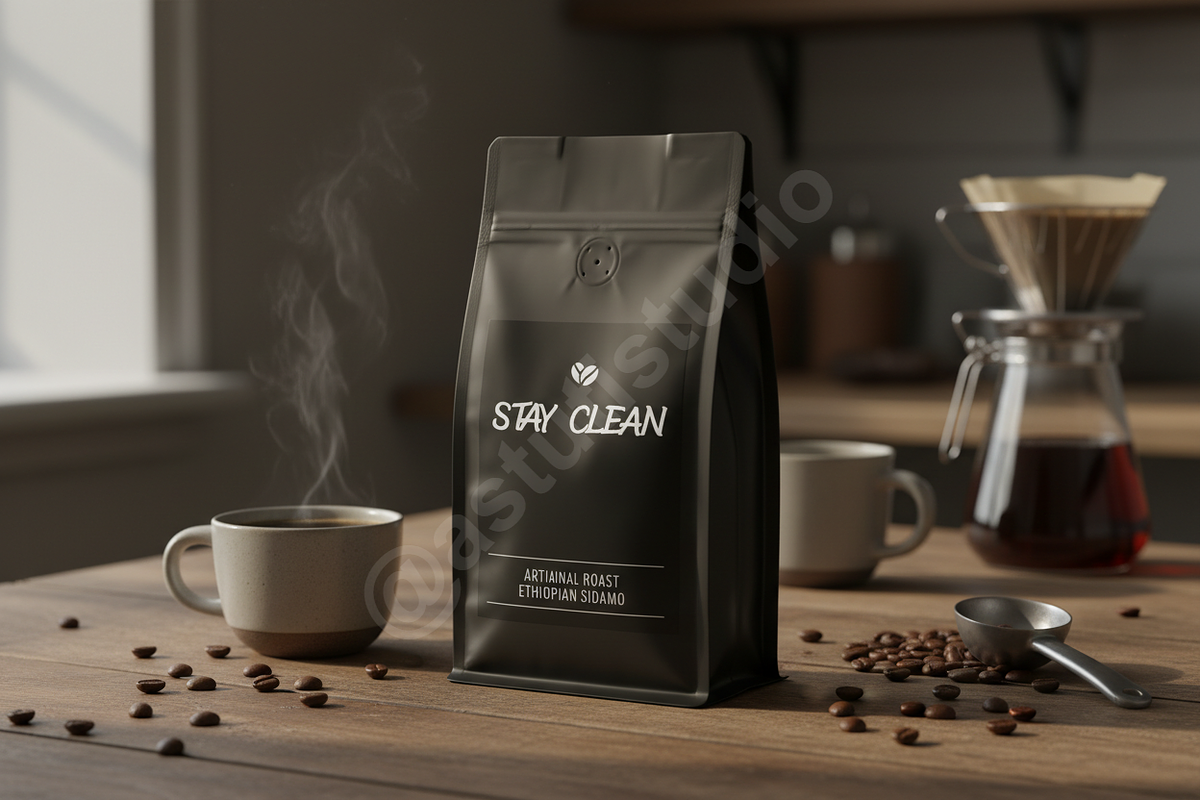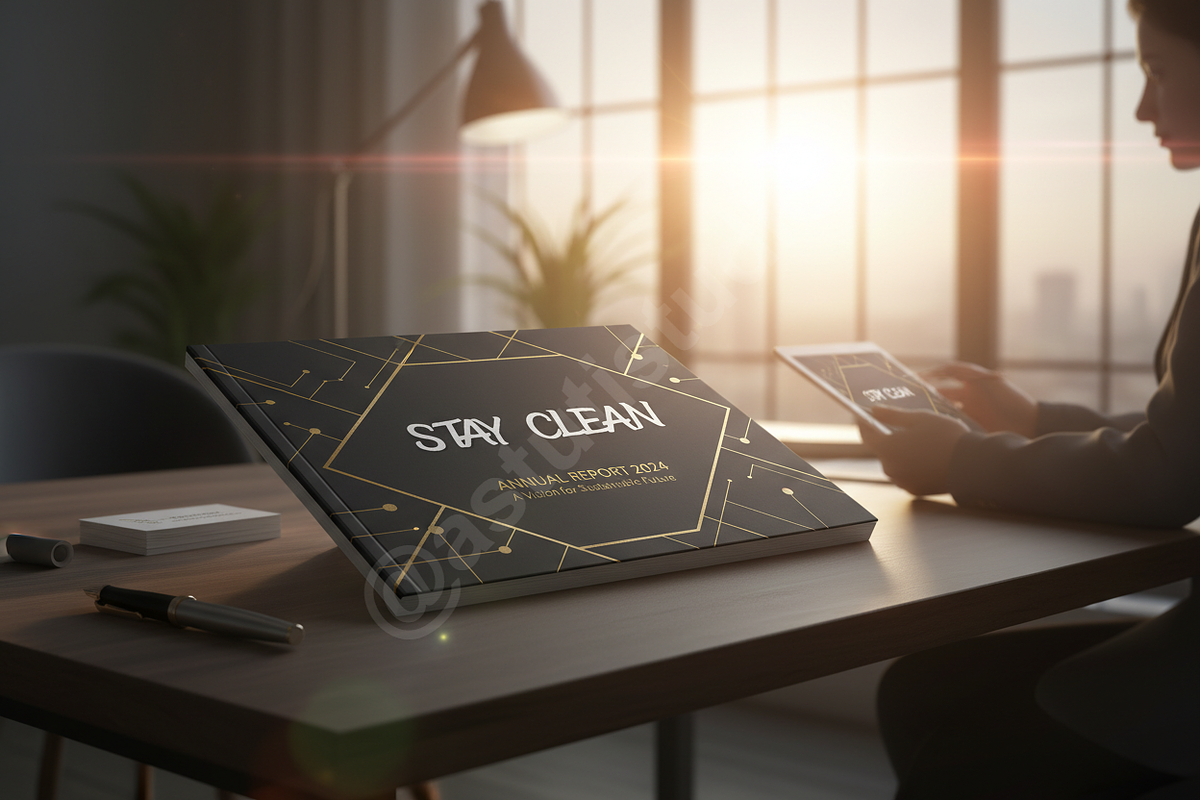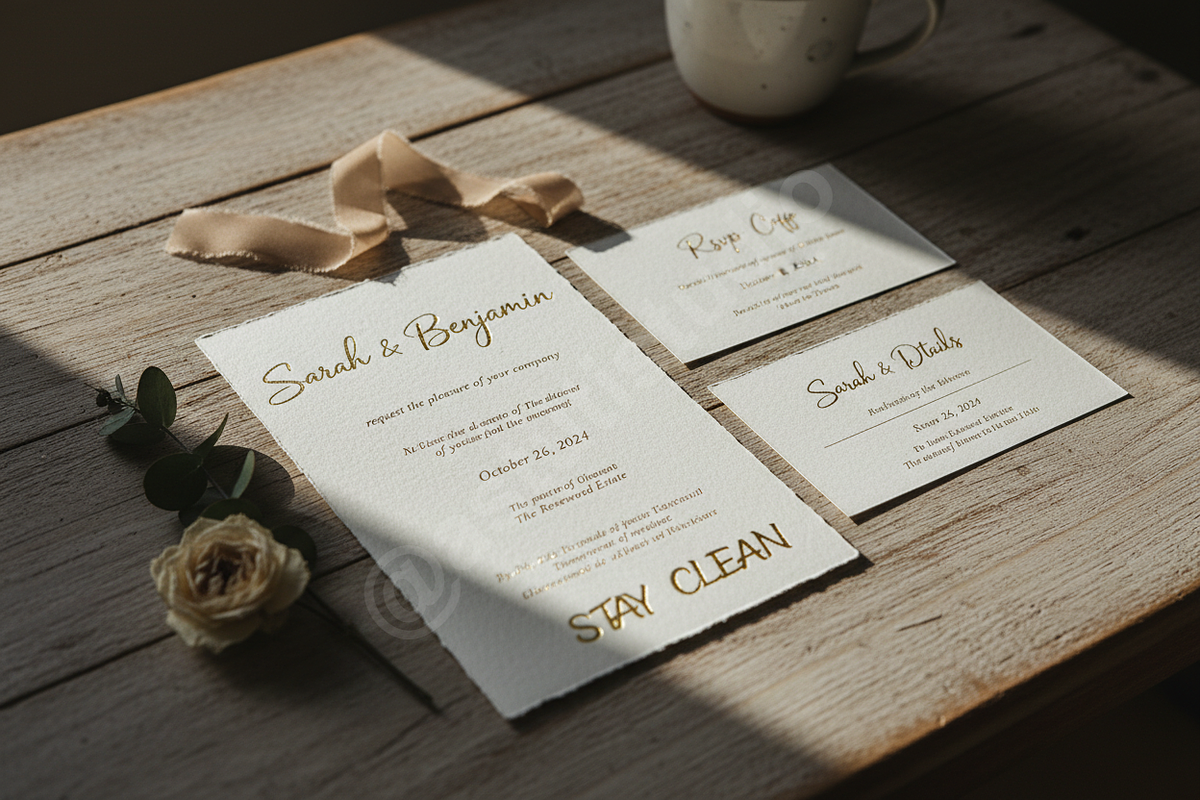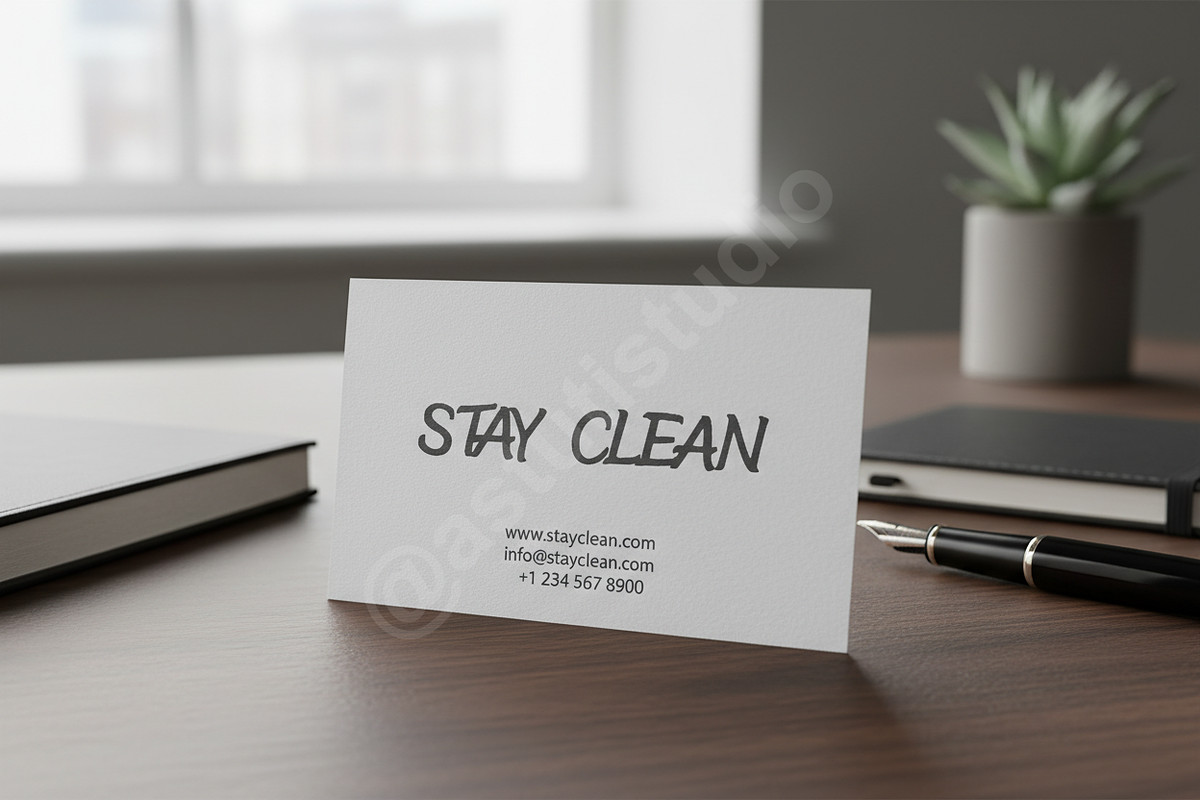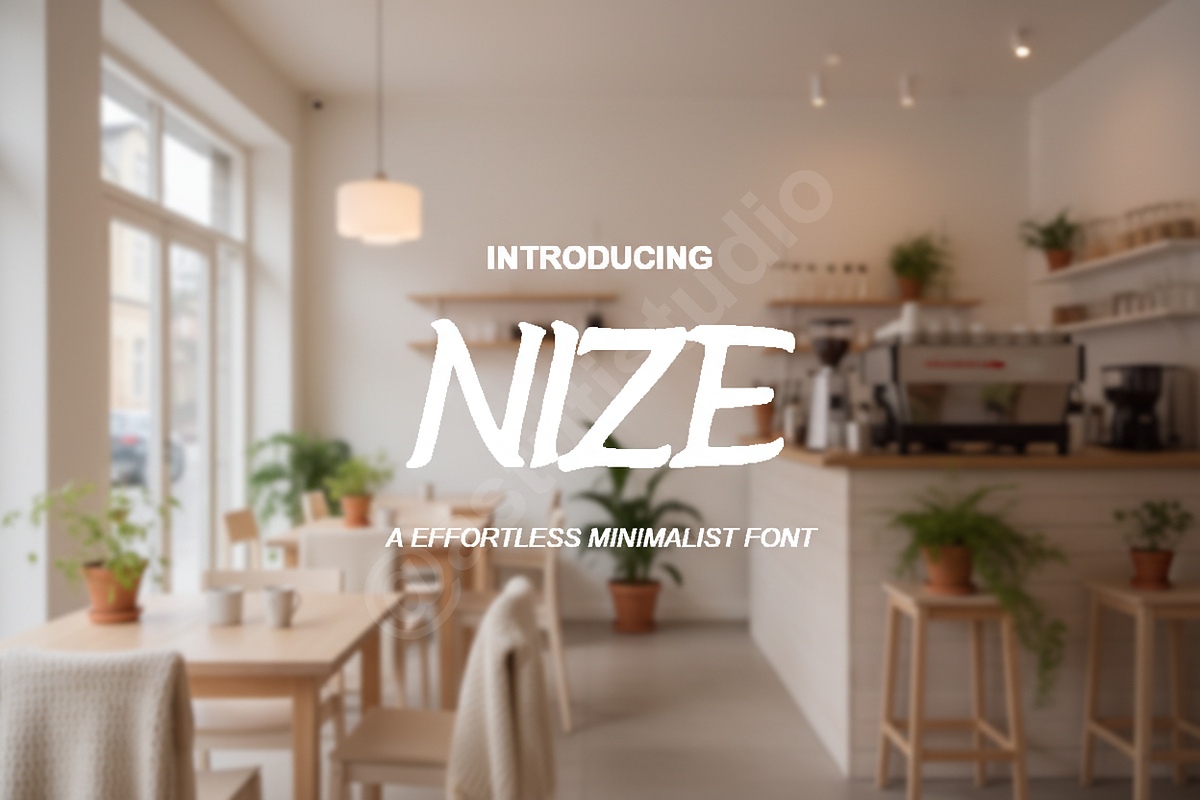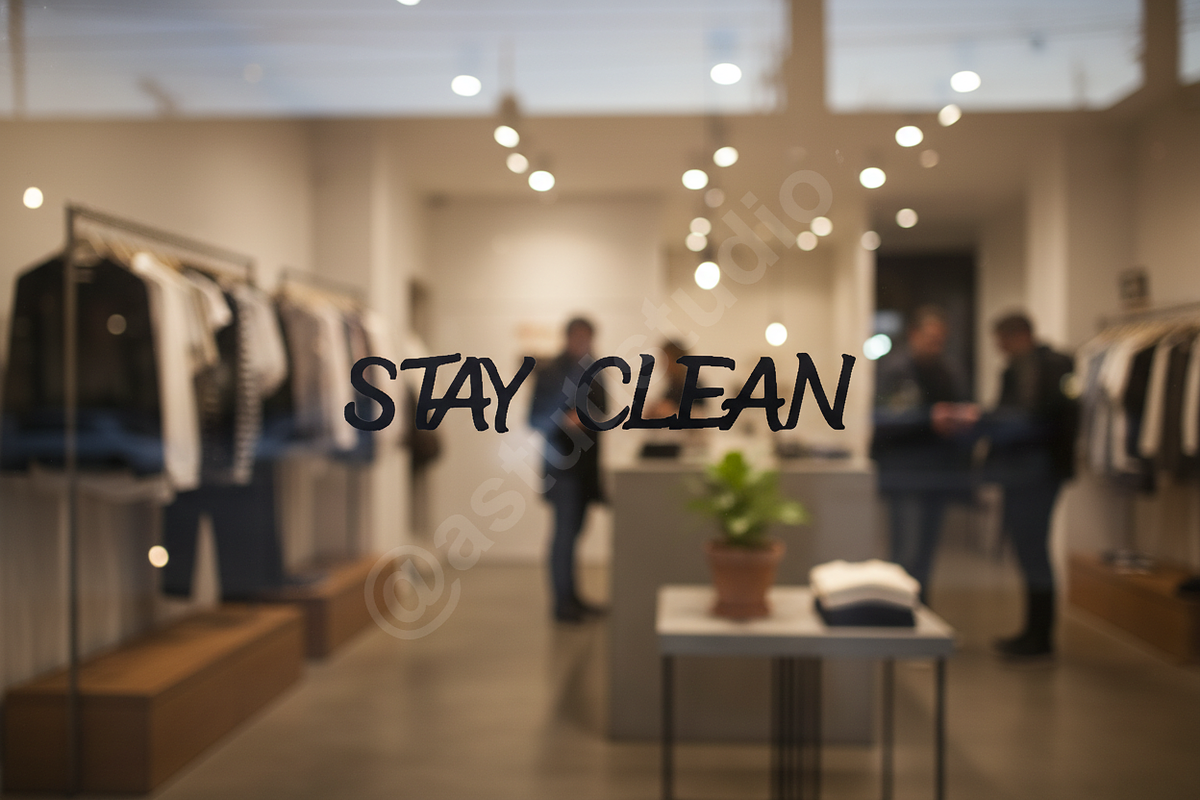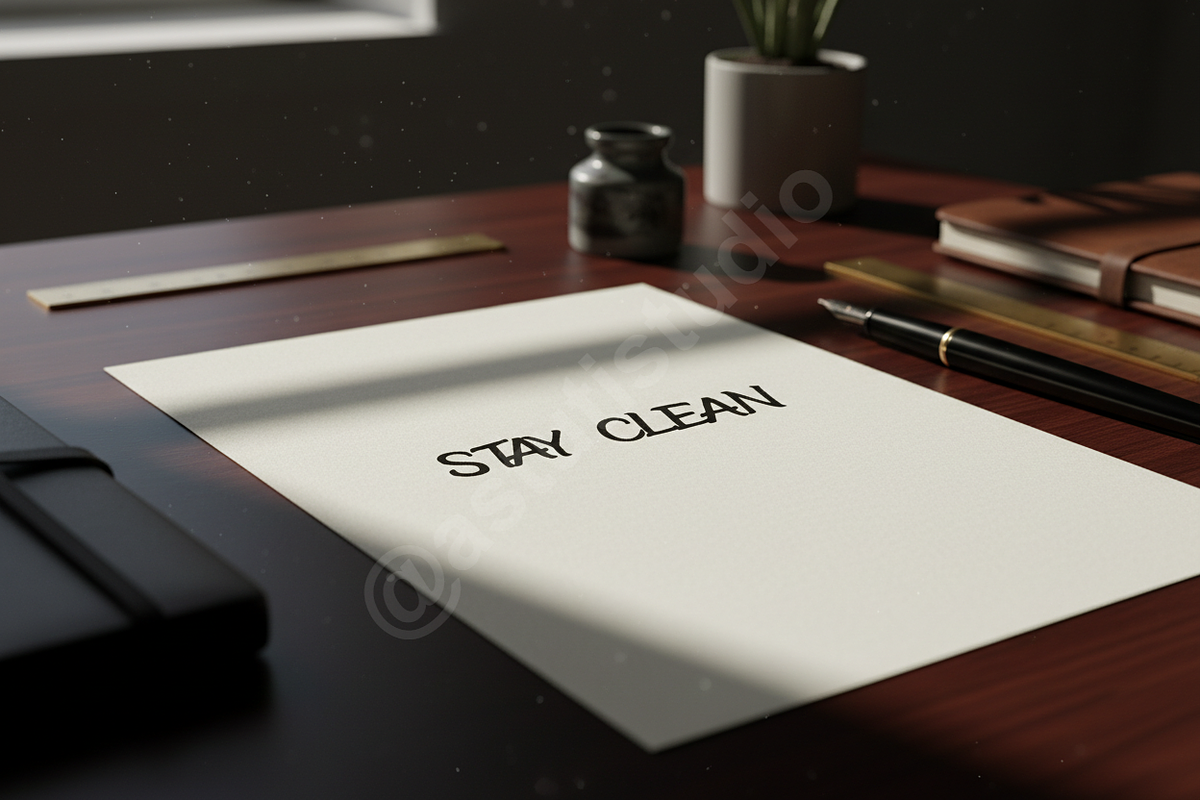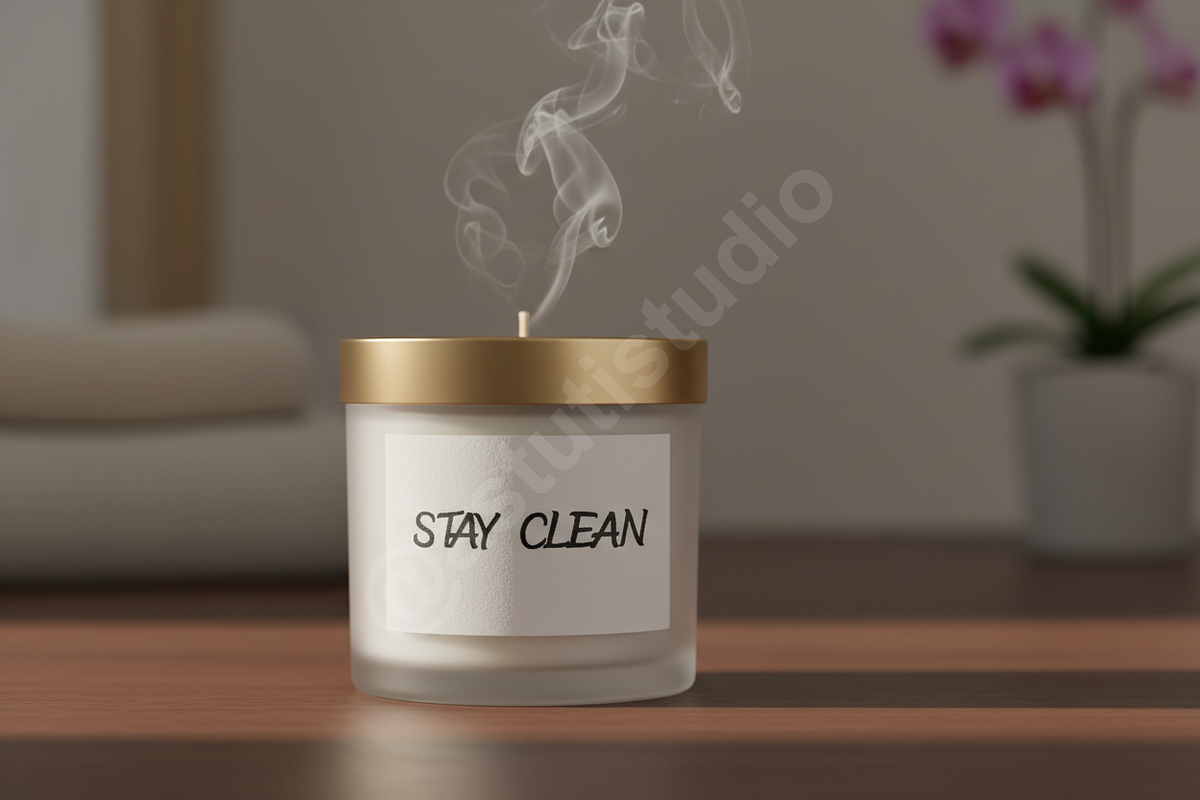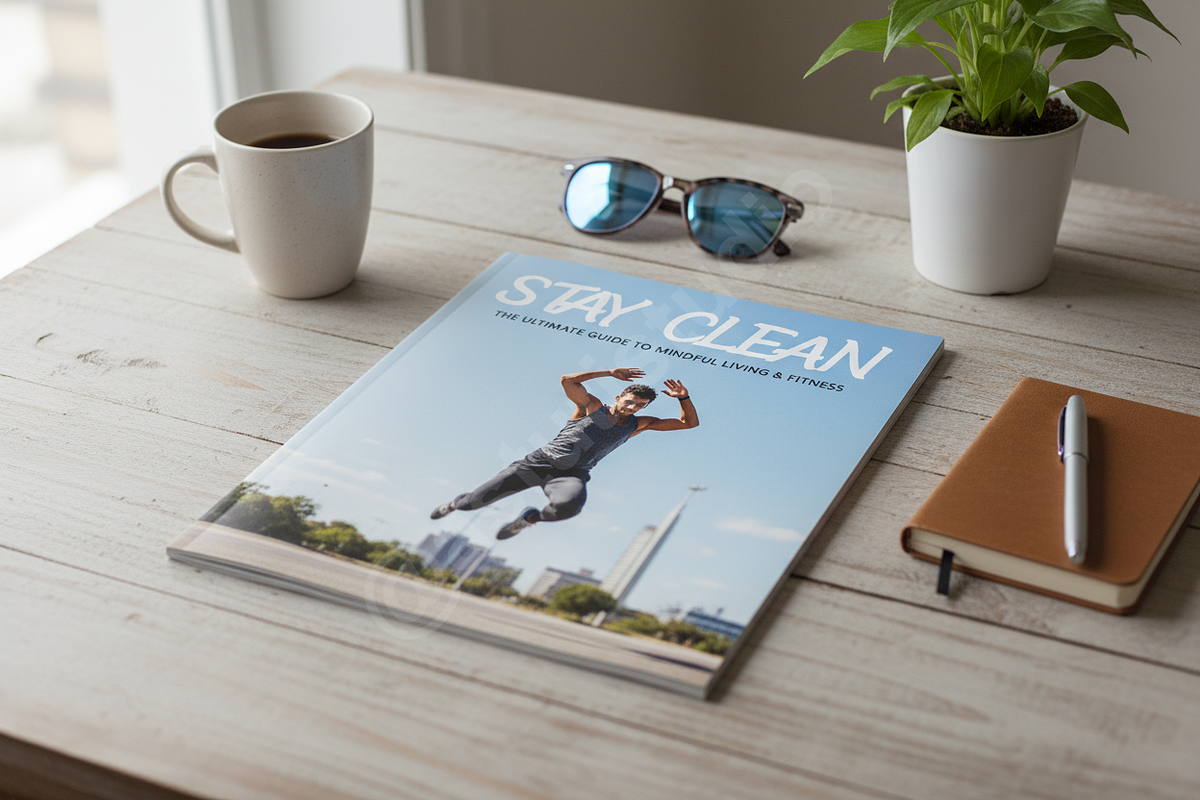
Nize - A Modern Luxury Serif Typefac
INTRODUCTION Elevate your visual identity with Nize, a sophisticated serif typeface meticulously crafted for the modern aesthetic. Nize blends classic proportions with contemporary high-contrast details, making it the definitive choice for brands that command attention through subtlety and grace. Whether you are designing for high-fashion editorial, luxury packaging, or elevated social media content, Nize provides a polished foundation for every creative endeavor.
- Elegant high-contrast serif architecture
- Precision-refined curves and sharp terminals
- Extensive set of stylistic alternates and ligatures
- Full multilingual character support
- Optimized kerning for professional typesetting
- Clean, legible performance in both display and body text sizes